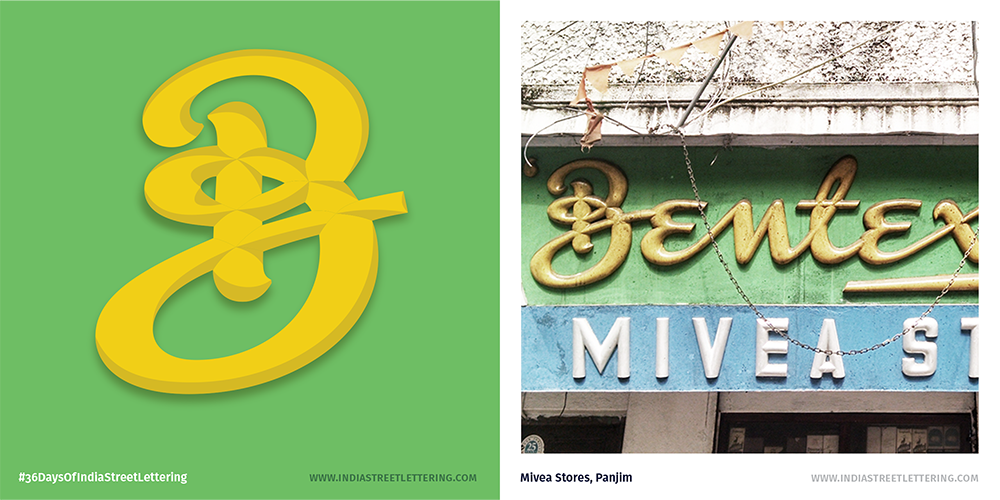
36 Days of India Street Lettering
For the 2018 edition of 36 Days of Type, I tried to shine a spotlight on the ingenious letter designs of local sign-makers in India, by drawing letters and numerals based on signs I have seen in the wild. I drew inspiration from signs in Udaipur (Rajasthan), Panjim and Mapusa (Goa), Mumbai (Maharashtra), Bangalore (Karnataka), Chennai (Tamil Nadu) and New Delhi — just a drop in the ocean when it comes to all the amazing street lettering in India. Some signs were hand-painted, others were neon or LED, further more were engraved, or made of metal or wood or concrete, or in one case, even ceramic tiles.